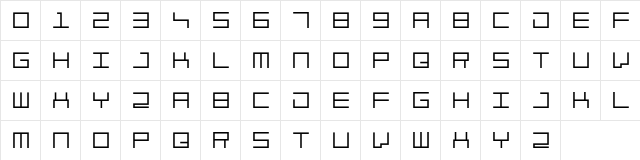
skuare Regular
Regular ·  Dinesh Verma ·
DesignerDinesh Verma
Design Context for skuare Typeface
skuare takes a measured approach to typography — its balanced proportions and neutral character make it a reliable workhorse for both digital and print work.